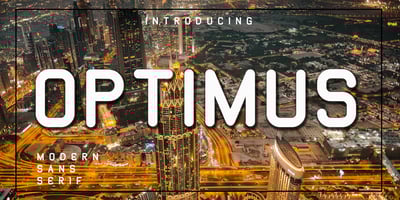
Optimus Font Family was designed by Ahmad Afandi and published by Letterafandi Studio. Optimus contains 3 styles and family package options. Optimus is a cool and modern display font. This font is ideal for writing web designs, business cards, or pretty much anything else that requires a unique touch.